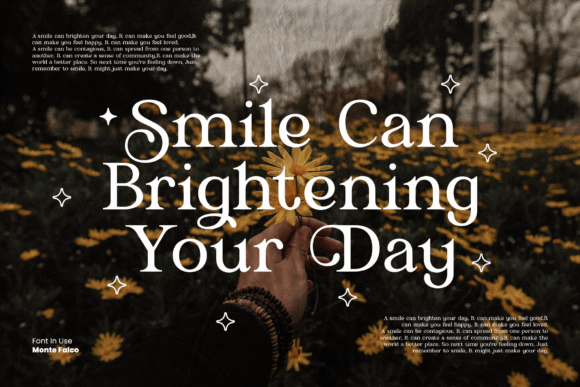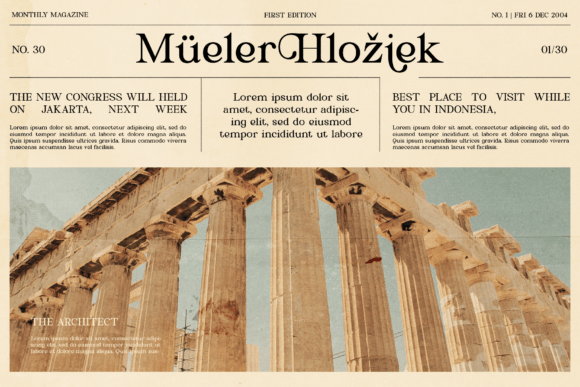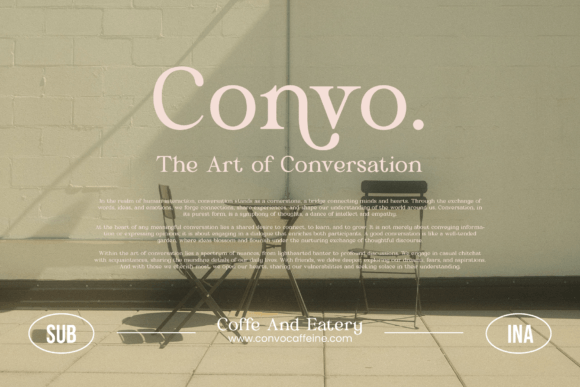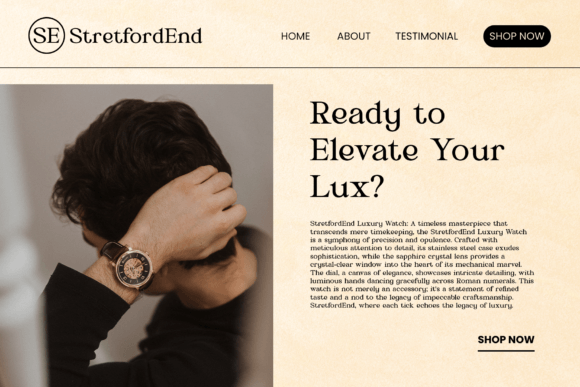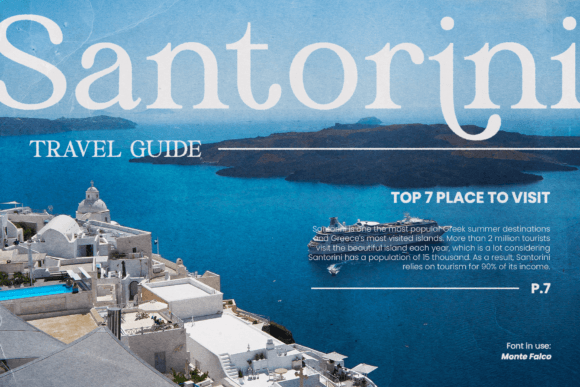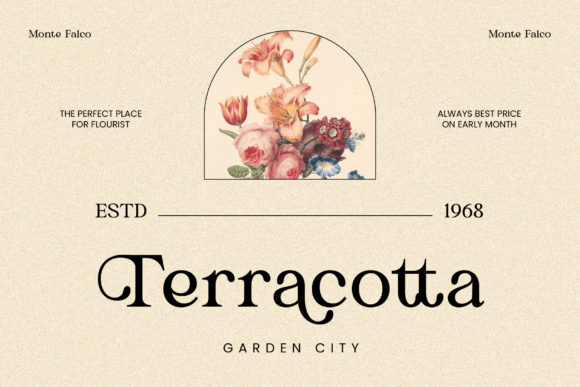
Introduction to Monte Falco Font
Have you ever stared at a blank page, surrounded by endless possibilities, and felt the creative spark ignite within you? That’s exactly what happens when I’m about to embark on a new project. The blank slate is both exhilarating and intimidating, but with the right design resources, the journey becomes a whole lot smoother. That’s where the Monte Falco Font comes in – a stunning serif font that’s sure to elevate any creative project to new heights.
As a designer, you know how crucial it is to have access to high-quality fonts that can elevate your work. The Monte Falco Font is a game-changer, boasting an elegant and sophisticated style that’s reminiscent of 16th-century Italian serif fonts. With its slender and delicate serifs, proportional letterforms, and PUA encoding, this font is a design resource that’s hard to resist.
Key Features of Monte Falco Font
- Designed with precision and attention to detail, resulting in a crisp and clear font with excellent readability.
- Unique characteristics include elegant curves, subtle texture, and a sophisticated feel, making it perfect for luxury branding and high-end designs.
Honest Review: Monte Falco Font
I recently came across the Monte Falco Font and I’m excited to share my thoughts on this design resource. As a designer, I’m always on the lookout for high-quality fonts that can elevate my creative projects.
The Monte Falco Font is a beautifully designed font that offers a unique and elegant look. I love that it’s a free download, making it accessible to designers of all levels. One of the standout features of this font is its transparent background, which allows for seamless integration with any design.
Here are some things that work well with the Monte Falco Font:
- ✨ Unique and elegant design aesthetic
- ✨ High-quality font that’s perfect for creative projects
- ⚠️ Limited font styles available (only one weight)
- ⚠️ Not suitable for bold or dramatic text
Overall, I’m impressed with the Monte Falco Font and would definitely recommend it to designers who are looking for a high-quality, elegant font for their creative projects. With its transparent background and unique design aesthetic, it’s a great addition to any design resource library.
How to Use Monte Falco Font
The Monte Falco Font is a high-quality design resource ideal for creative projects. Its transparent background makes it versatile for various applications.
Tips for Getting the Most Out of Monte Falco Font
For optimal results, use the Monte Falco Font in combination with other high-quality design resources. Experiment with different font sizes, colors, and arrangements to create visually appealing designs.
The Monte Falco Font is suitable for various creative projects, including:
- Logo designs